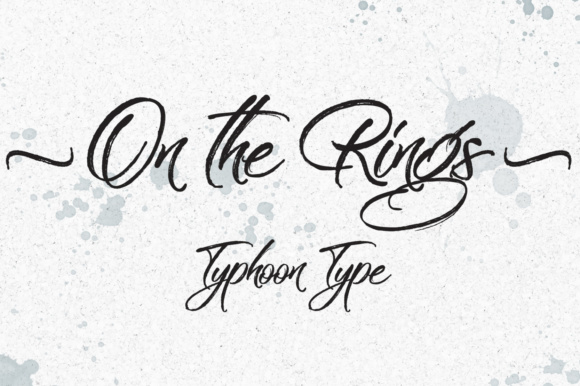
On the Rings Font
About On the Rings Font
On the Rings is a gorgeous, dry brush stroke font. This aesthetically appealing display font is great for giving your work a hand-lettered look.